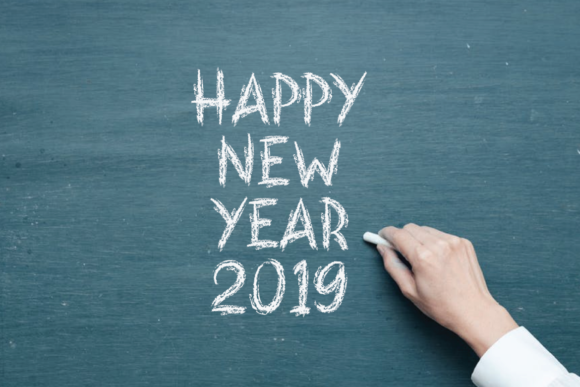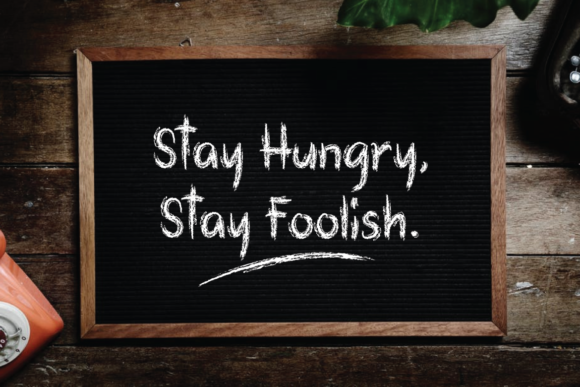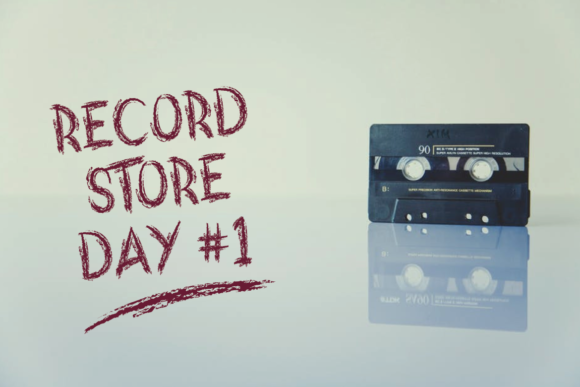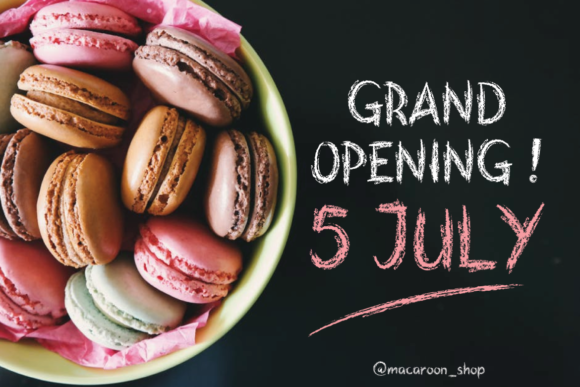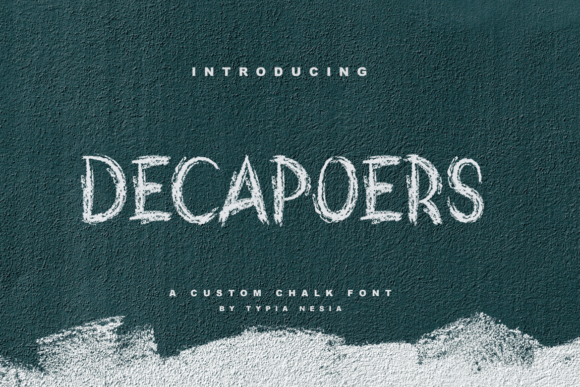
Introducing DeCapoers Font: The Ultimate Grunge Addition to Your Design Arsenal
Are you tired of using the same old fonts in your designs? Look no further than DeCapoers, a fun and gritty chalkboard font that’s perfect for adding a touch of grunge to your projects. With its unique blend of playfulness and edginess, DeCapoers is sure to elevate your branded content and make it stand out from the crowd.
The Perfect Font for Entertainment and Music Brands
DeCapoers is a versatile font that can be used in a wide range of projects, from music and entertainment branding to packaging and advertising. Its grunge appeal makes it an ideal choice for brands looking to convey a sense of rebellion, creativity, or nonconformity. Whether you’re designing a logo, poster, or social media graphic, DeCapoers is sure to add a cool, laid-back vibe to your design.
What Makes DeCapoers So Special?
So, what sets DeCapoers apart from other fonts? Here are just a few of its standout features:
- Unique lettering style: DeCapoers features a distinctive chalkboard-inspired lettering style that’s both playful and gritty.
- Grunge appeal: With its rough, distressed texture, DeCapoers adds a touch of grunge to any design.
- Highly versatile: DeCapoers can be used in a wide range of projects, from digital designs to print materials.
- Easy to read: Despite its grungy texture, DeCapoers is surprisingly easy to read, making it perfect for use in headlines, titles, and other display text.
How to Use DeCapoers in Your Designs
Ready to add DeCapoers to your design toolkit? Here are a few ideas to get you started:
- Music branding: Use DeCapoers to create bold, eye-catching logos and posters for music festivals, concerts, and album releases.
- Entertainment marketing: Add a touch of grunge to your movie or TV show promotions with DeCapoers.
- Packaging design: Use DeCapoers to add a playful, edgy vibe to product packaging for food, beverage, or lifestyle brands.
- Social media graphics: Create engaging social media graphics with DeCapoers, perfect for grabbing attention and driving engagement.
Tips for Pairing DeCapoers with Other Fonts
To get the most out of DeCapoers, try pairing it with other fonts that complement its grunge appeal. Here are a few suggestions:
- Pair with a sans-serif font: Combine DeCapoers with a clean, modern sans-serif font for a striking contrast.
- Mix with a script font: Add a touch of elegance to your design by pairing DeCapoers with a flowing script font.
- Use with a bold font: Create a bold, eye-catching design by pairing DeCapoers with another bold font.
DeCapoers is a fun, gritty chalkboard font that’s perfect for adding a touch of grunge to your designs. With its unique lettering style, high versatility, and ease of use, DeCapoers is sure to become a staple in your design toolkit. Whether you’re working on a music branding project, entertainment marketing campaign, or packaging design, DeCapoers is the perfect choice for adding a cool, laid-back vibe to your design.
Get Ready to Elevate Your Designs with DeCapoers